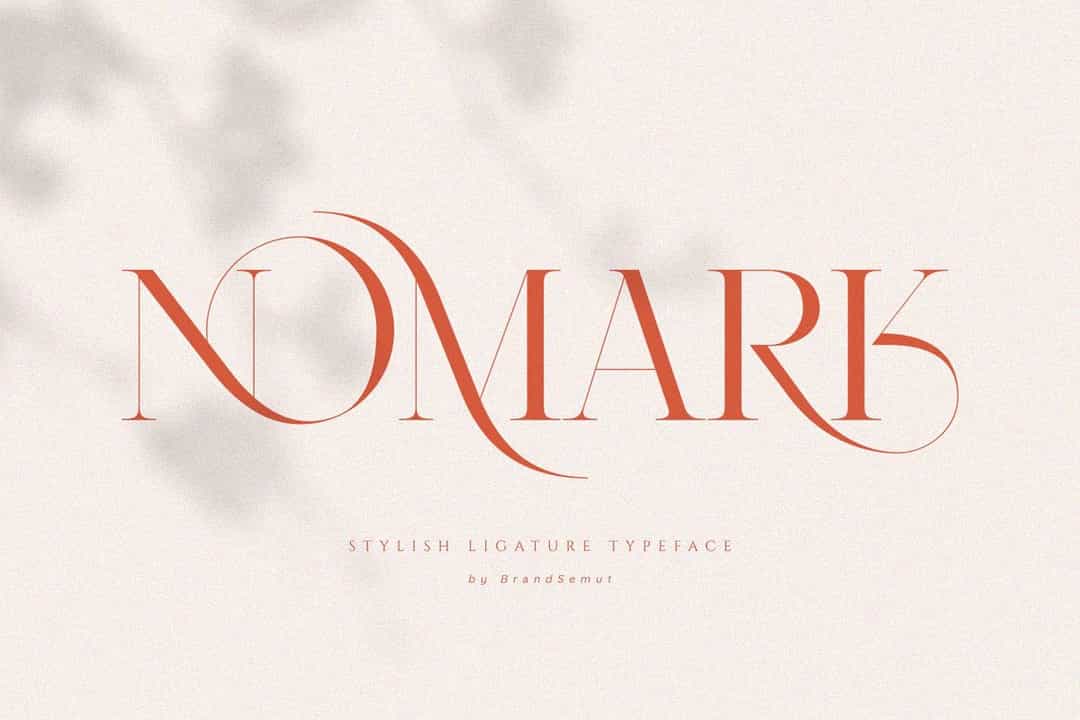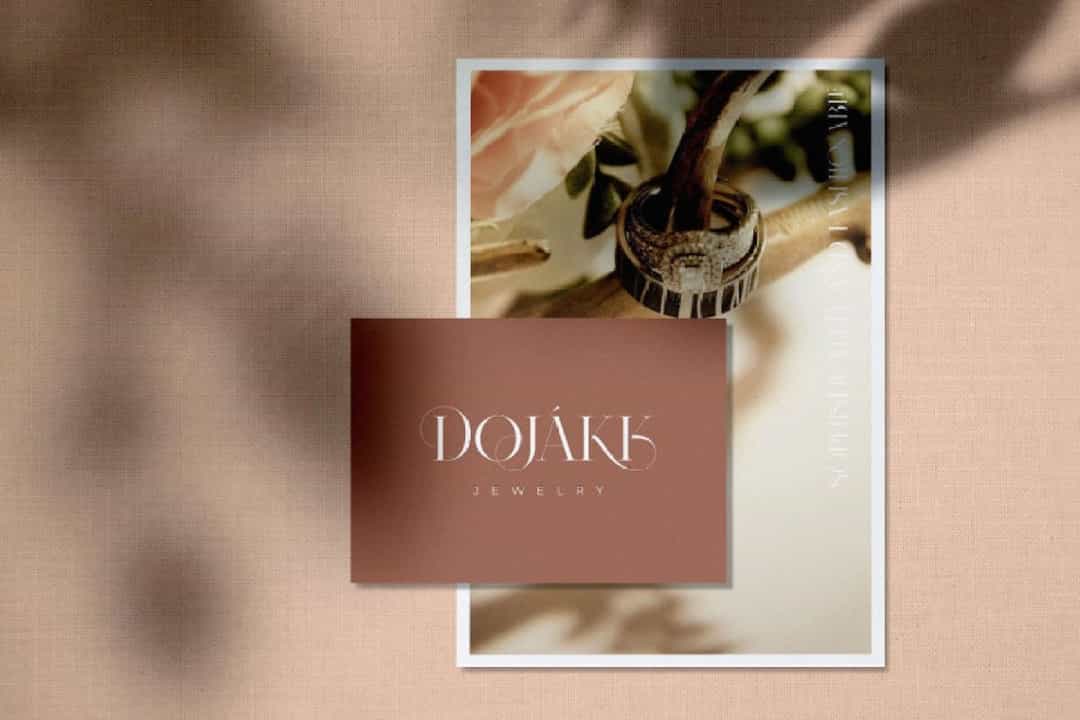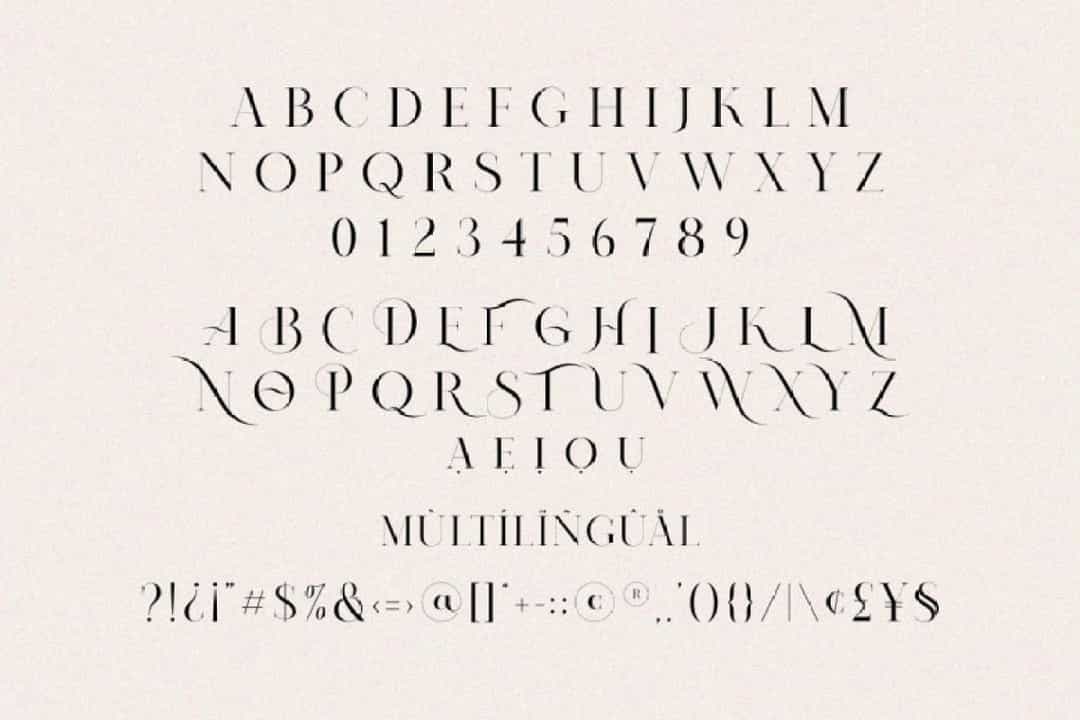
Nomark is a serif font that is perfect to be used in logo design, it has a classical look with a touch of modernity. Already being compatible with other fonts, Nomark can be easily used in your next project! When you incorporate this font, it will stylishness, chicness, elegance, and modernity into your designs – excellent if you desire to introduce a touch of retro flavor into them!